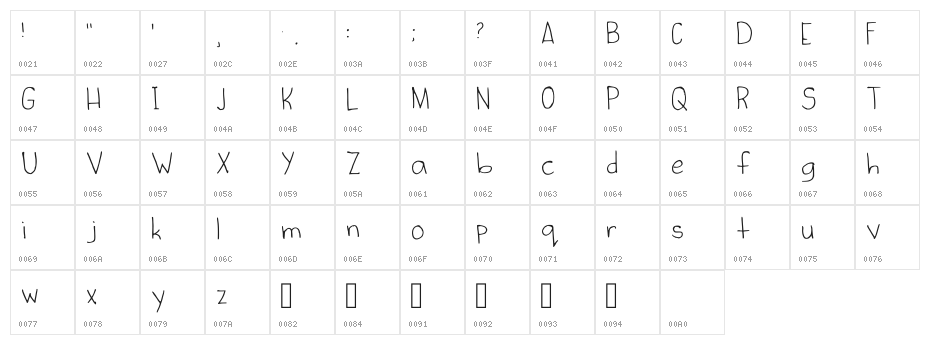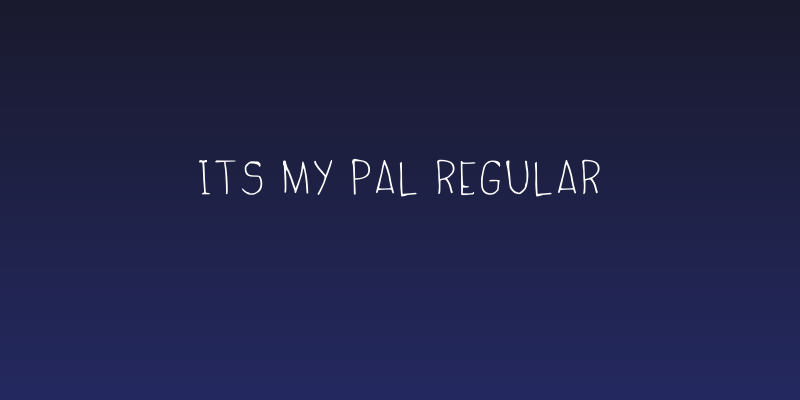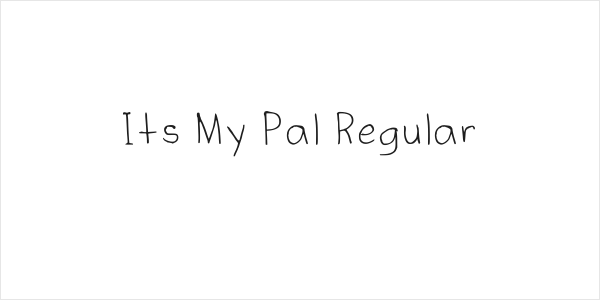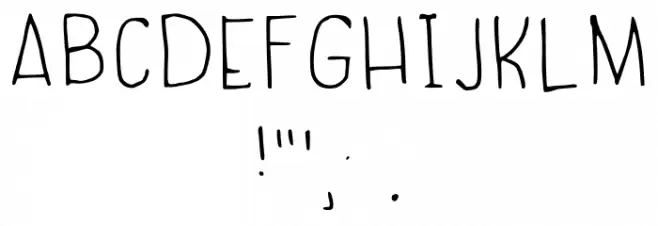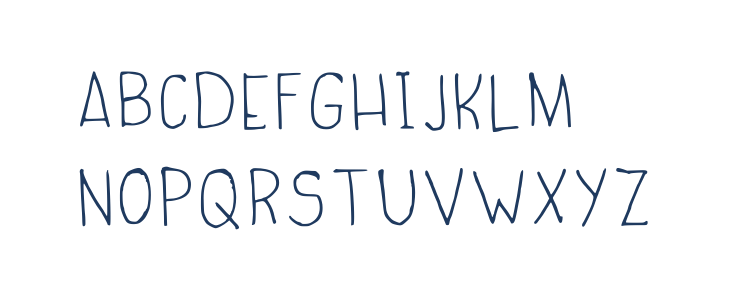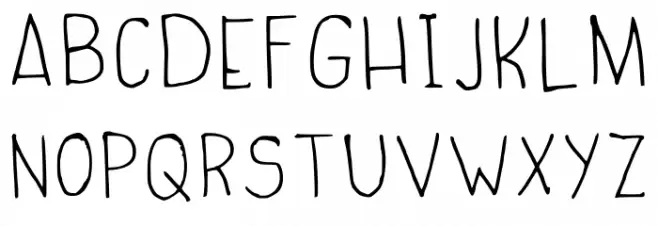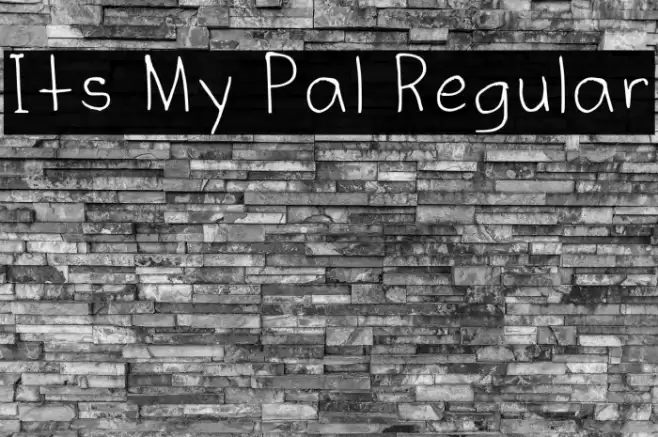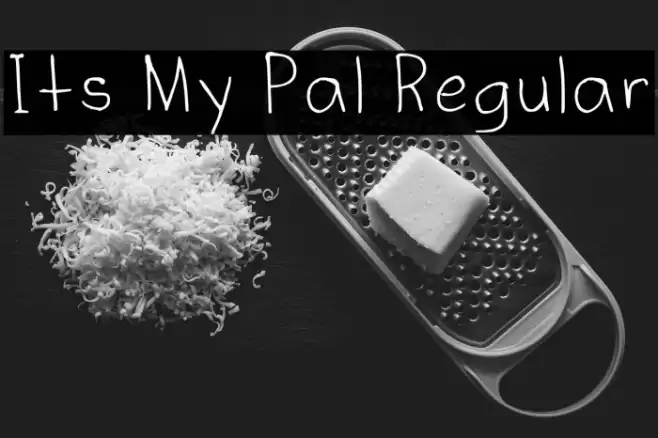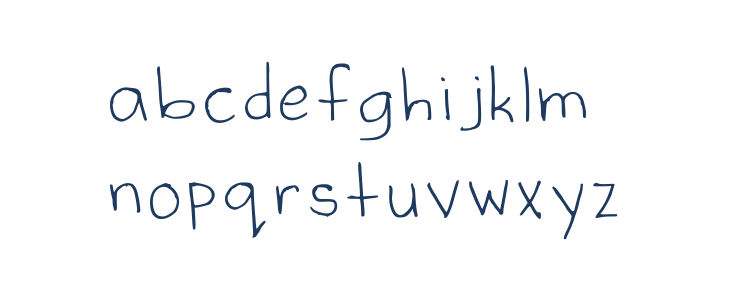
Its My Pal Regular Font
Its My Pal Regular Description
A handwritten, casual, and playful font with a slightly irregular stroke, resembling a child's handwriting.
| Use Case | Children's books, informal notes, creative projects |